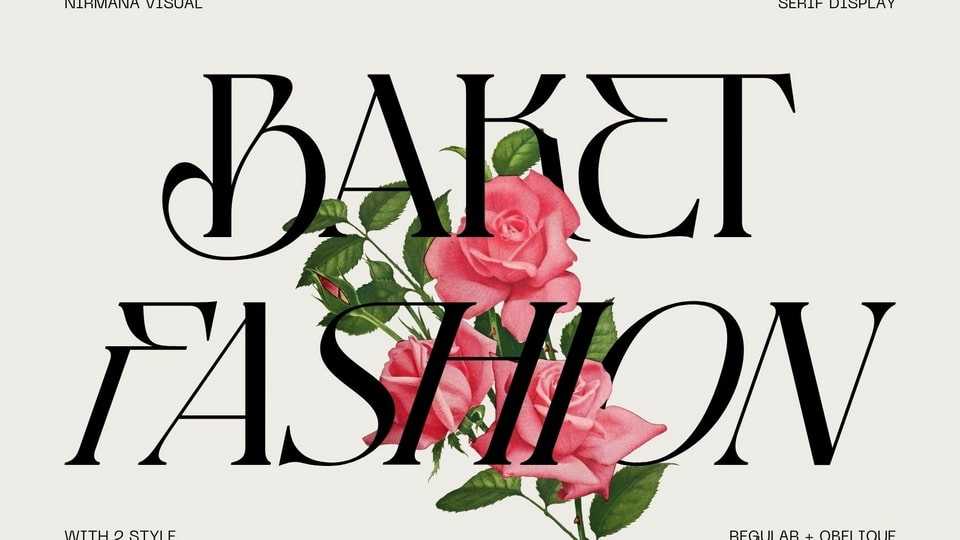
Download Backet Fashion font, an exquisite elegant style typeface, designed to bring sophistication and grace to your designs. With its refined letterforms, delicate curves, and timeless beauty, Backet Fashion font is perfect for projects that require a touch of elegance and class.